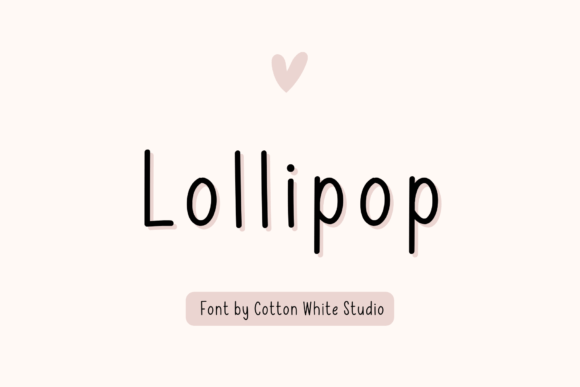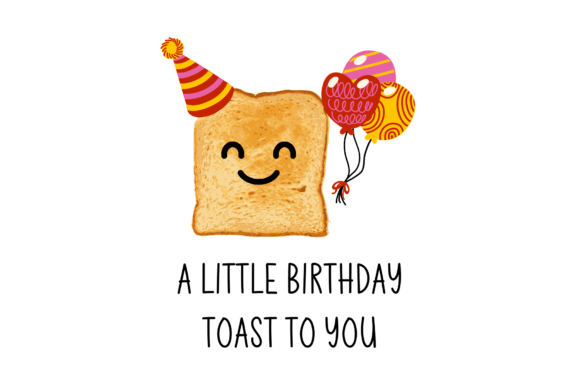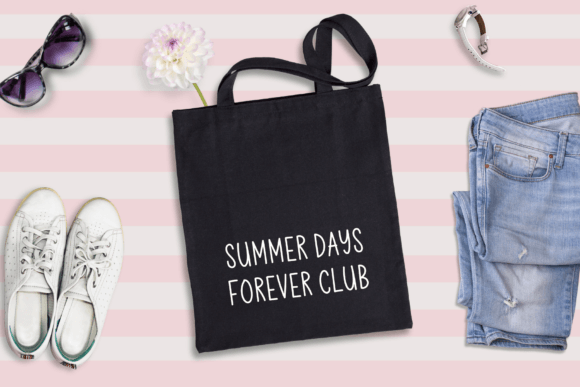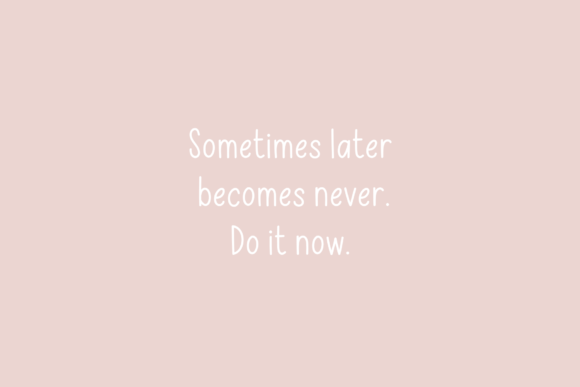
Lollipop Font
Lollipop is a sweet and friendly handwritten font. You can use this font to jazz up your digital planner, journal, invitations, note-taking, or anything that requires a handwriting look.